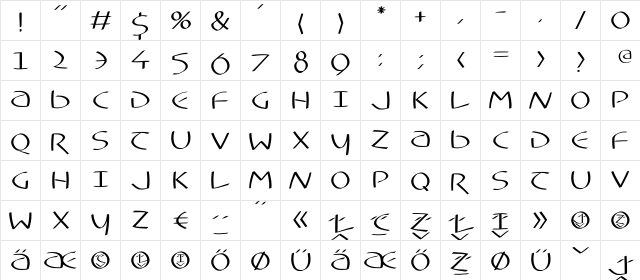
TypoasisUncialFS Regular Font Preview
TypoasisUncialFS Regular
TypoasisUncialFS Regular Font Details
Design Context for TypoasisUncialFS Typeface
TypoasisUncialFS takes a measured approach to typography — its balanced proportions and neutral character make it a reliable workhorse for both digital and print work.